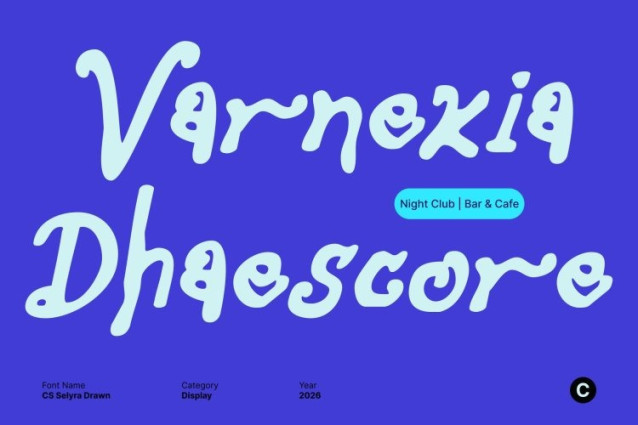
CS Selyra Drawn Font
CS Selyra Drawn Font This is a whimsical decorative display font designed to spark creativity and bring fantasy to life. Each character features playful curves and imaginative detailing, creating a joyful rhythm that feels straight out of a storybook. Its lively letterforms instantly add charm and wonder to any design.
Fantasy Aesthetic with Artistic Drawn Expression
Inspired by magical tales and imaginative worlds, this font blends fantasy aesthetics with an artistic drawn texture. The hand-drawn effect adds warmth and personality, giving each letter a handcrafted feel that enhances its enchanting character. This expressive style makes designs feel more alive, personal, and visually engaging.
Perfect for Kids’ Projects and Playful Visuals
This font shines in children’s books, educational materials, playful posters, and themed events. Its decorative details and cheerful forms make it ideal for headlines, titles, and creative branding that aims to capture attention while maintaining a fun, friendly tone.
A Magical Choice for Creative Designs
From packaging and social media graphics to fantasy branding and creative campaigns, this font brings a sense of joy and imagination to every project. This font is perfect for designers who want to infuse their work with charm, magic, and a delightful artistic spirit.